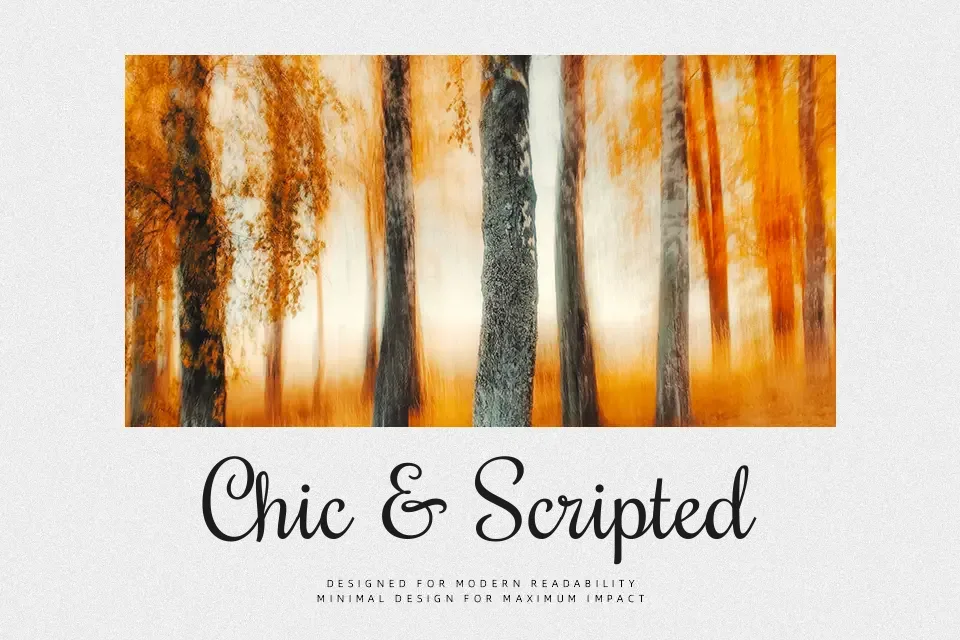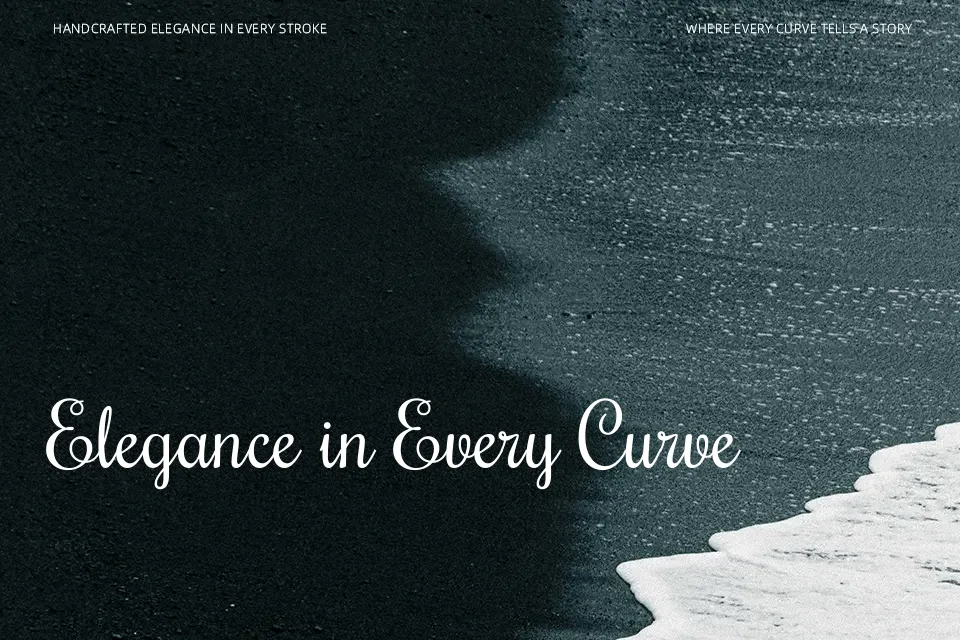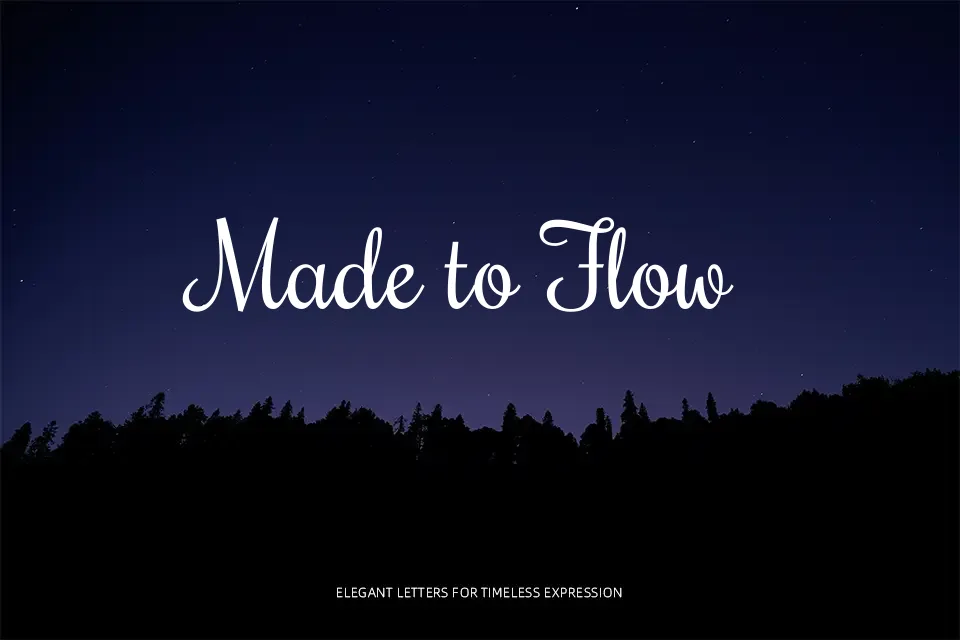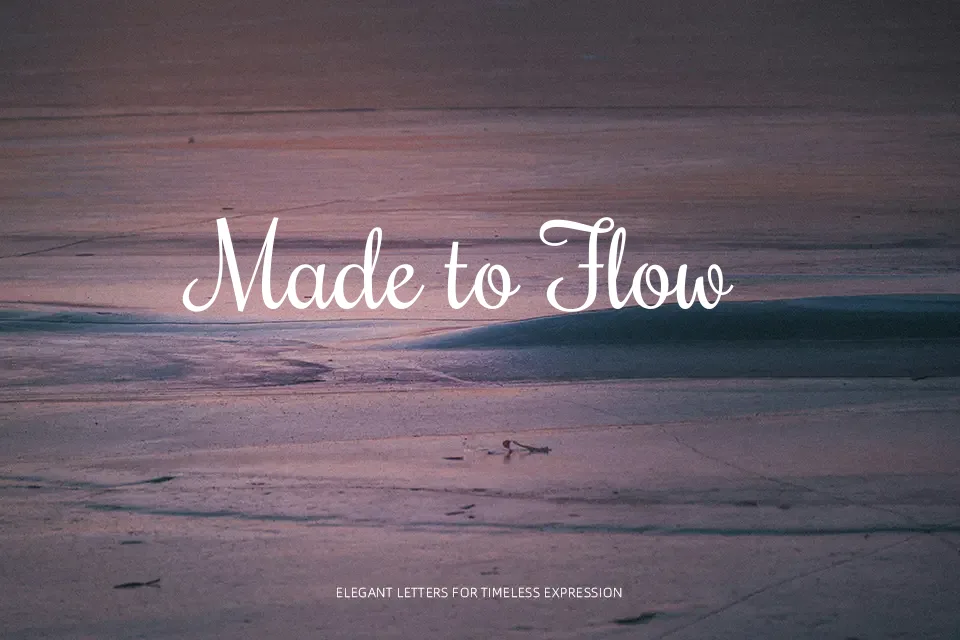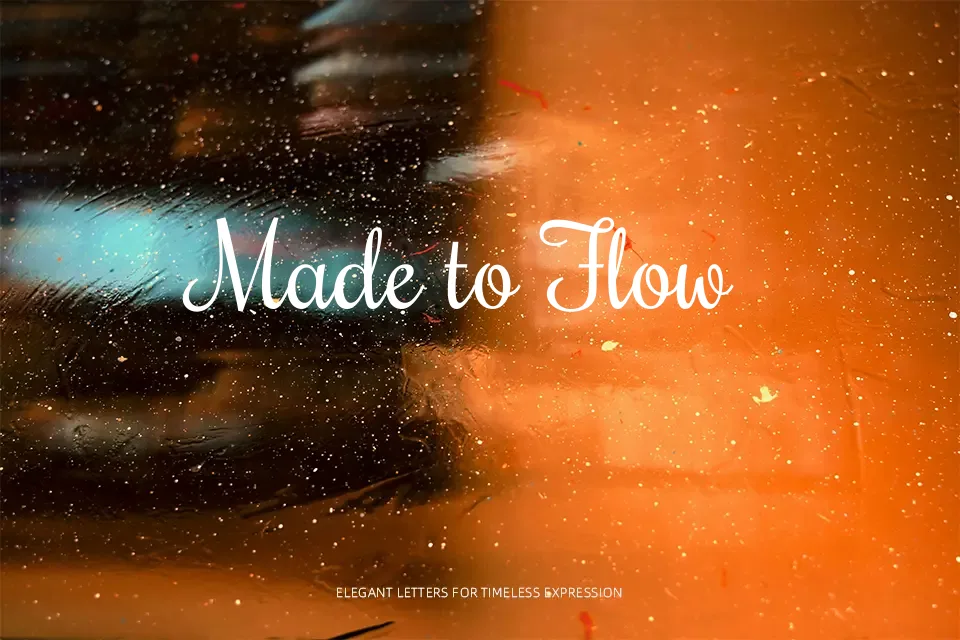
Rochester Font
Designed by Sideshow
Rochester is a graceful script typeface with medium contrast strokes, looping terminals, and generous curves that echo classic American sign painting. Its letterforms sit with relatively open spacing, so words remain readable even at moderate sizes instead of collapsing into a tangle. Compared with fussier calligraphy scripts, Rochester feels more relaxed and playful, which makes it handy for retro-flavored branding, wedding menus, or boutique packaging where you want personality without losing legibility. It can feel too decorative for dense body text or minimalist tech interfaces, so it serves best as a display accent rather than a workhorse paragraph face.
vintage-inspired branding and logos
wedding invitations and event stationery
retro posters and headline graphics
long body text or detailed editorial layouts
strictly minimal or tech-oriented UI design
very small captions or dense data visuals
Perfect for branding, invitation, and logo, with a classic and calligraphy style.